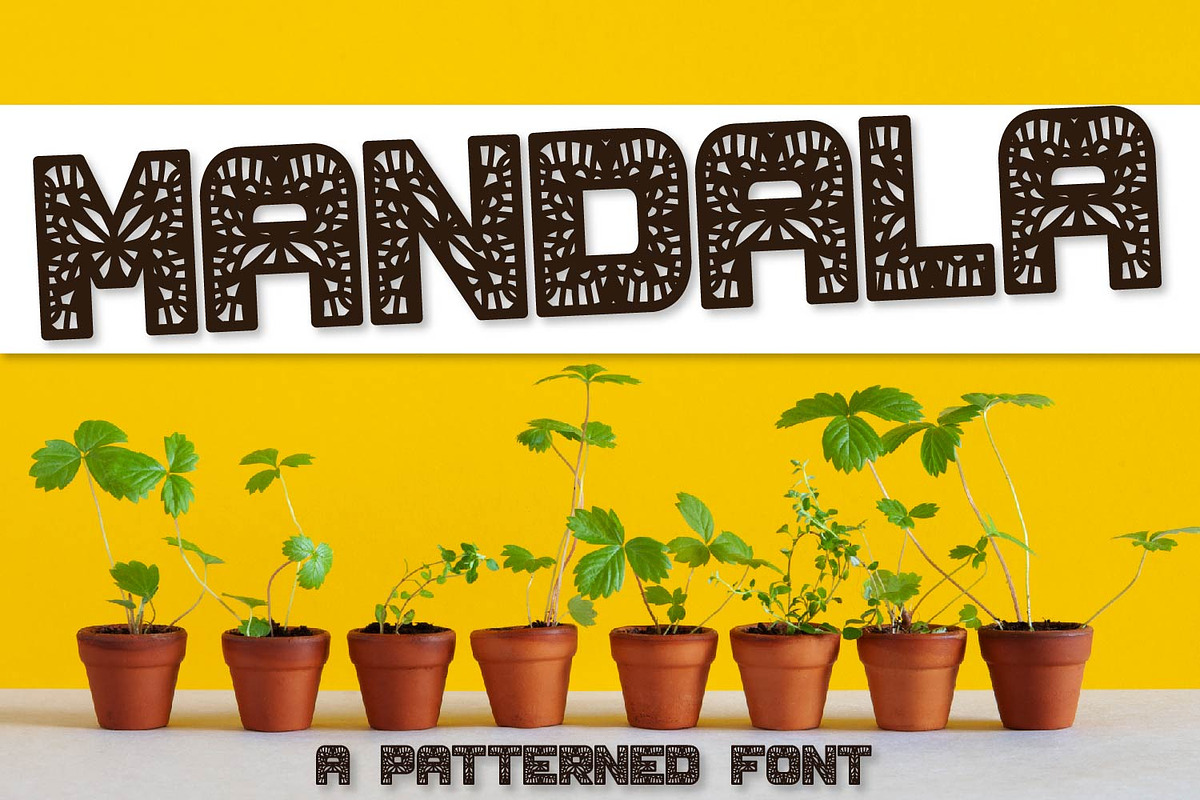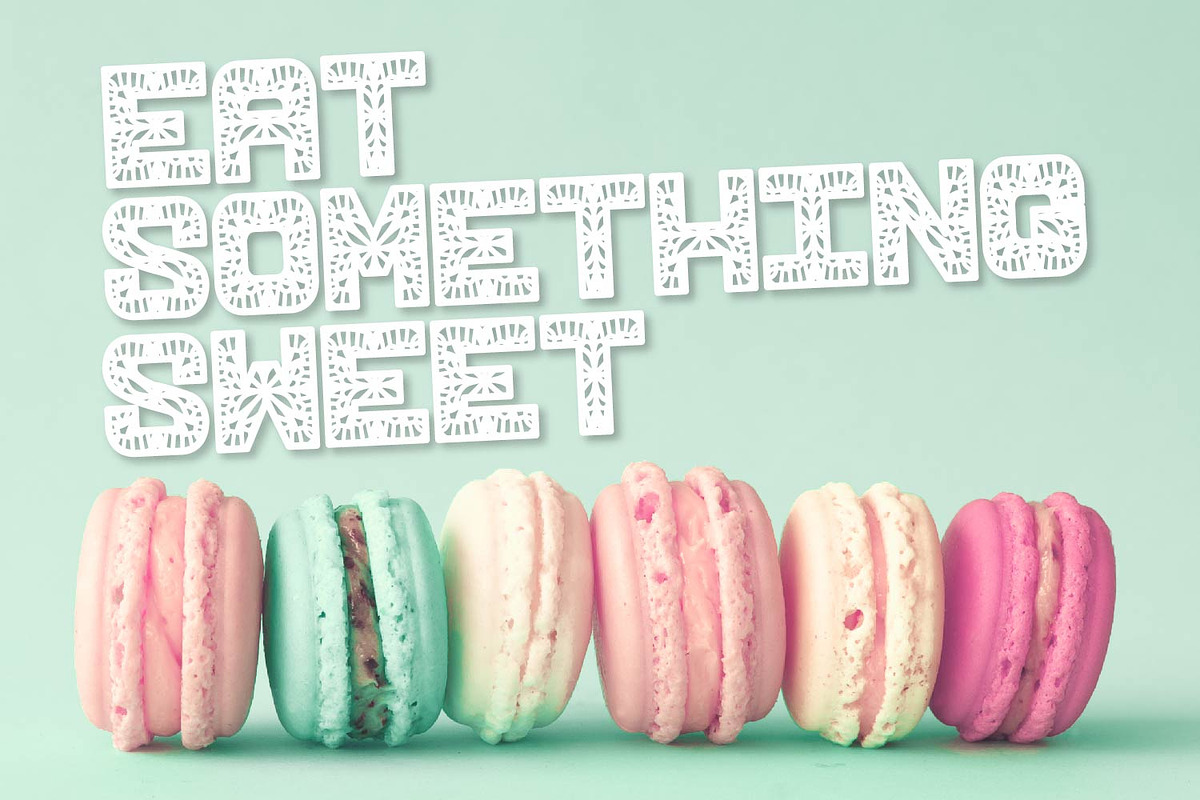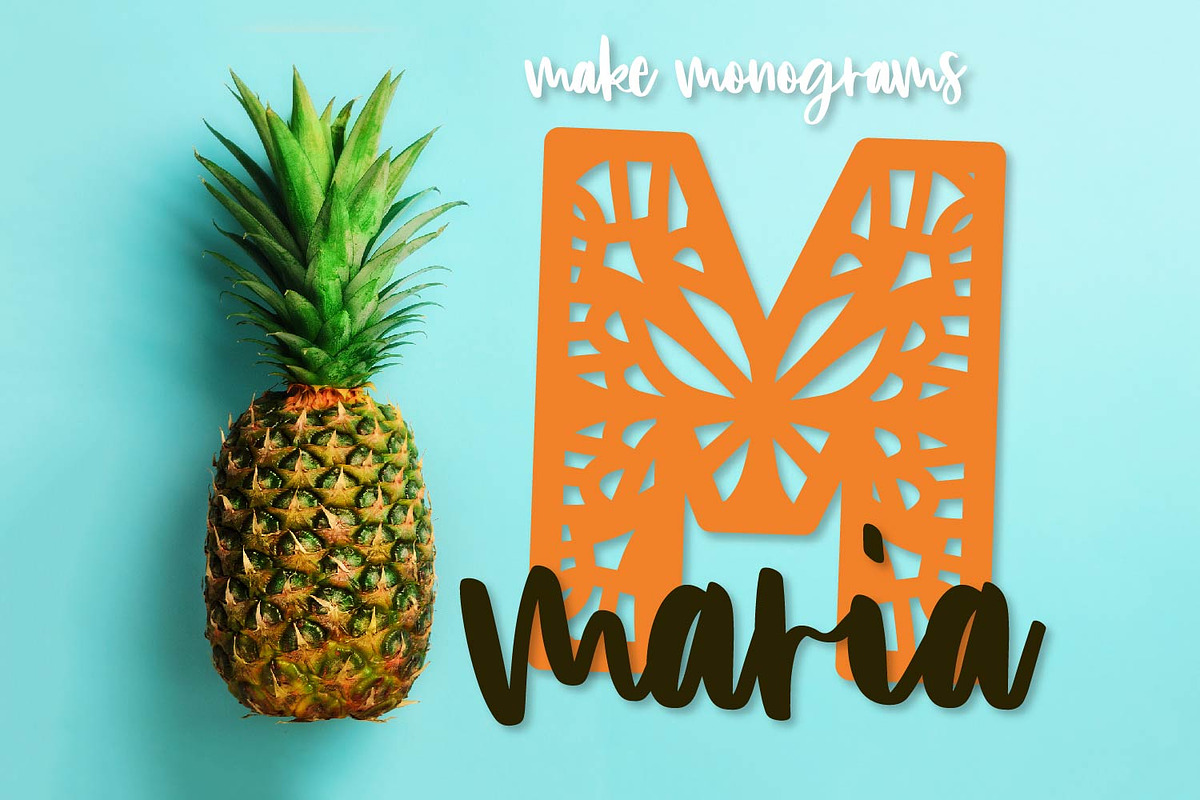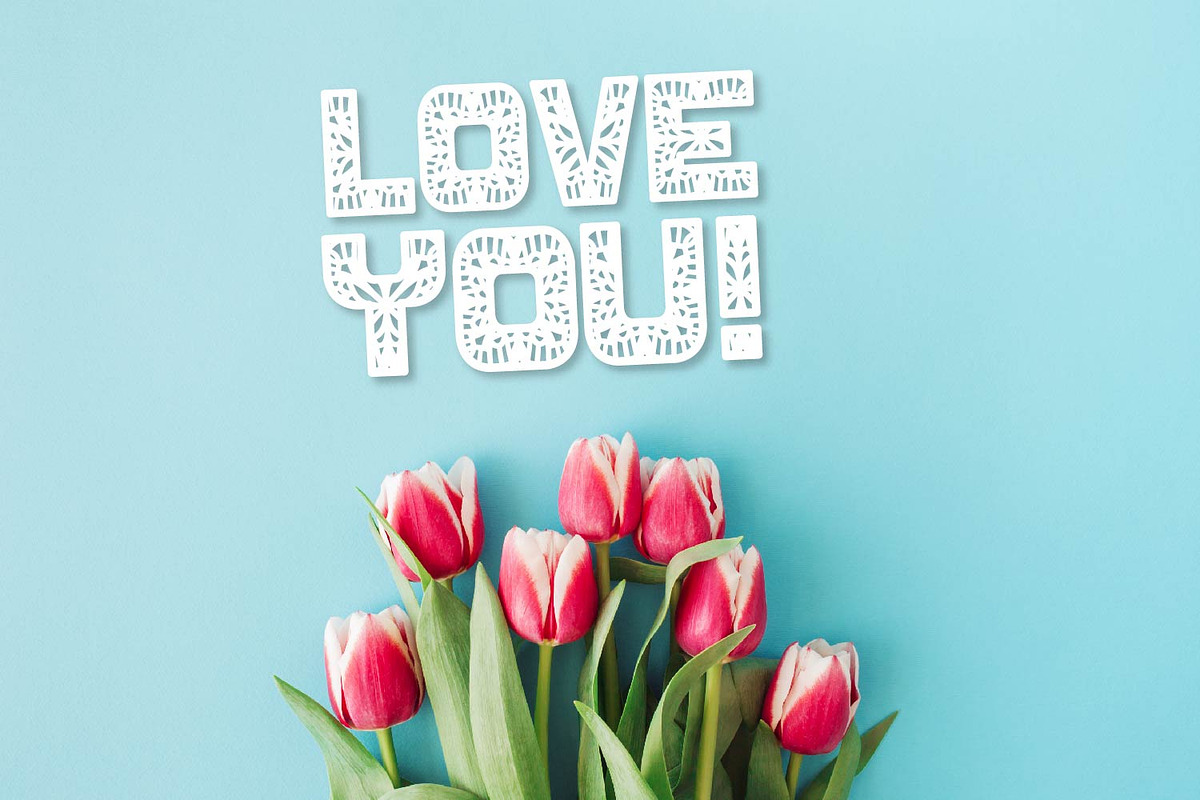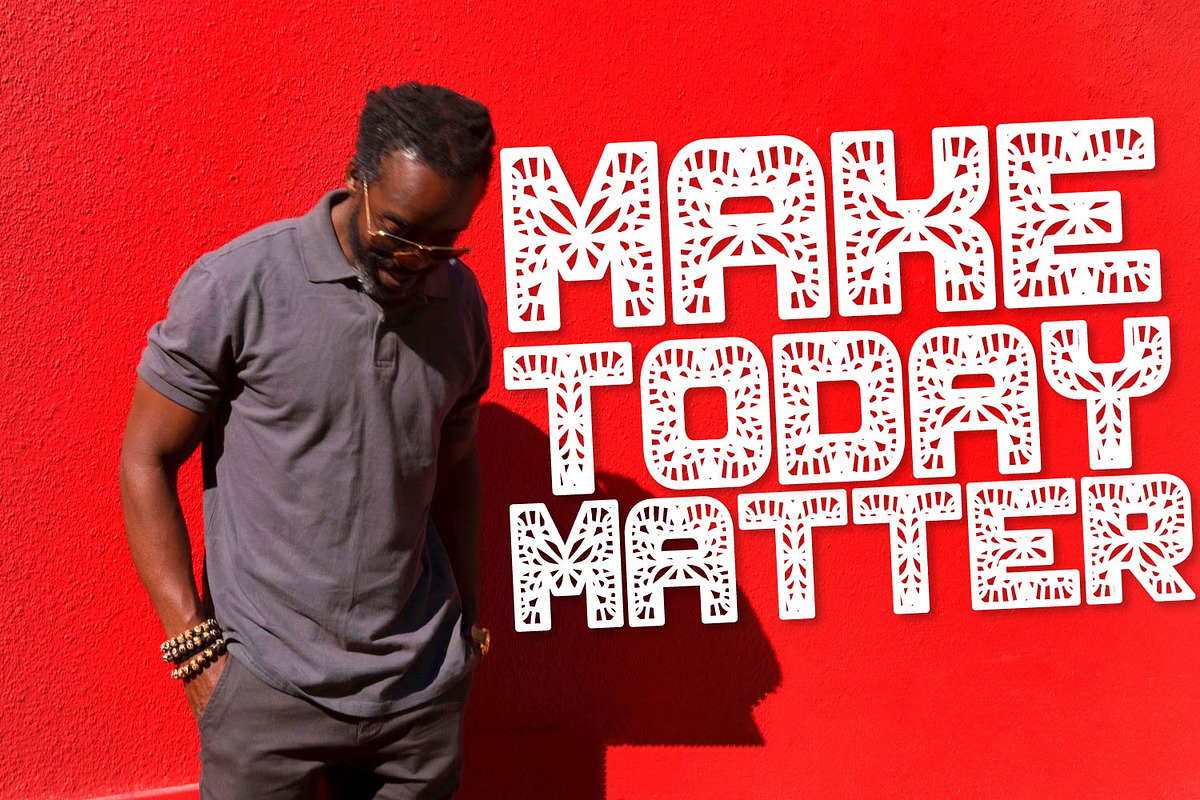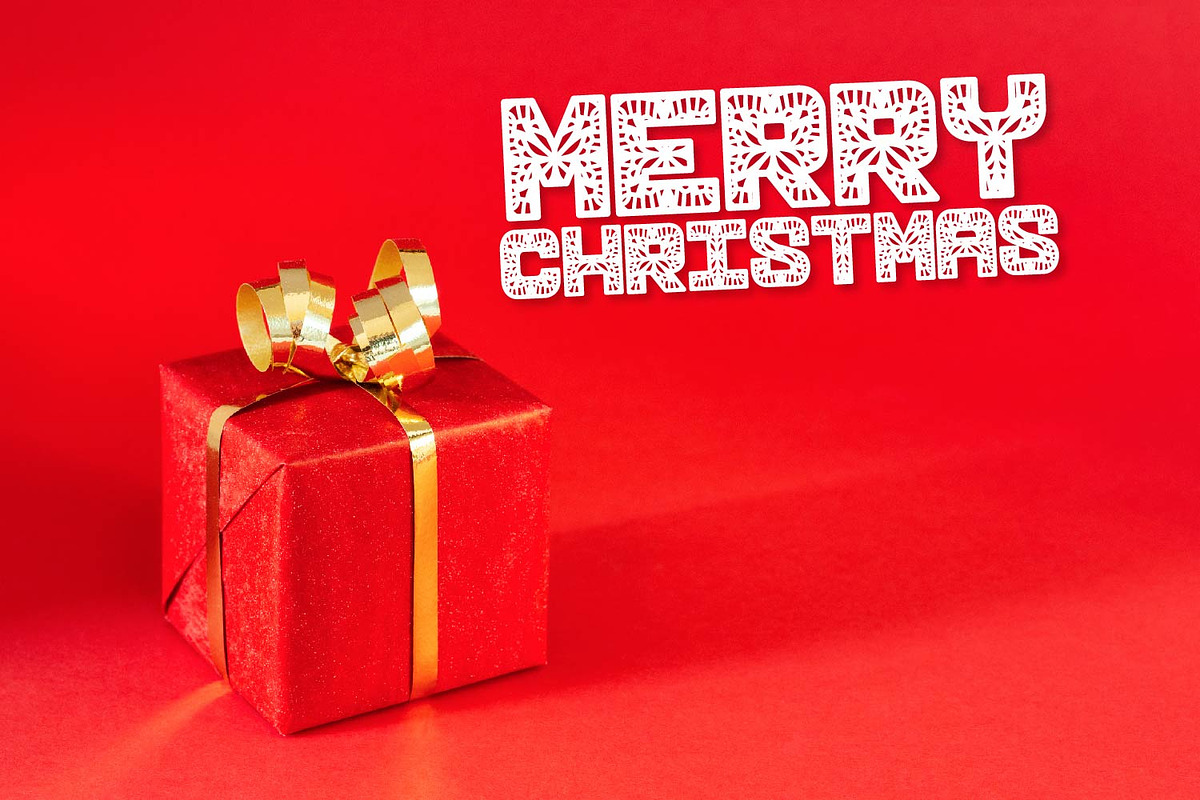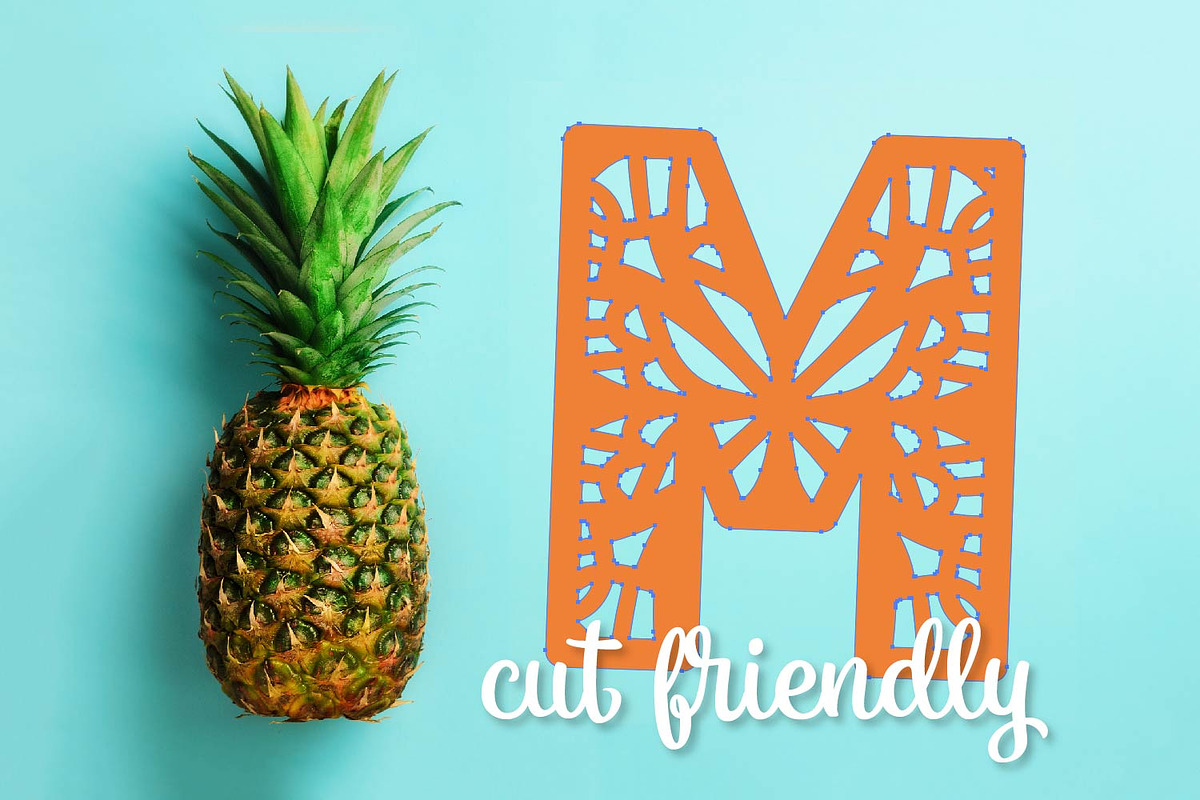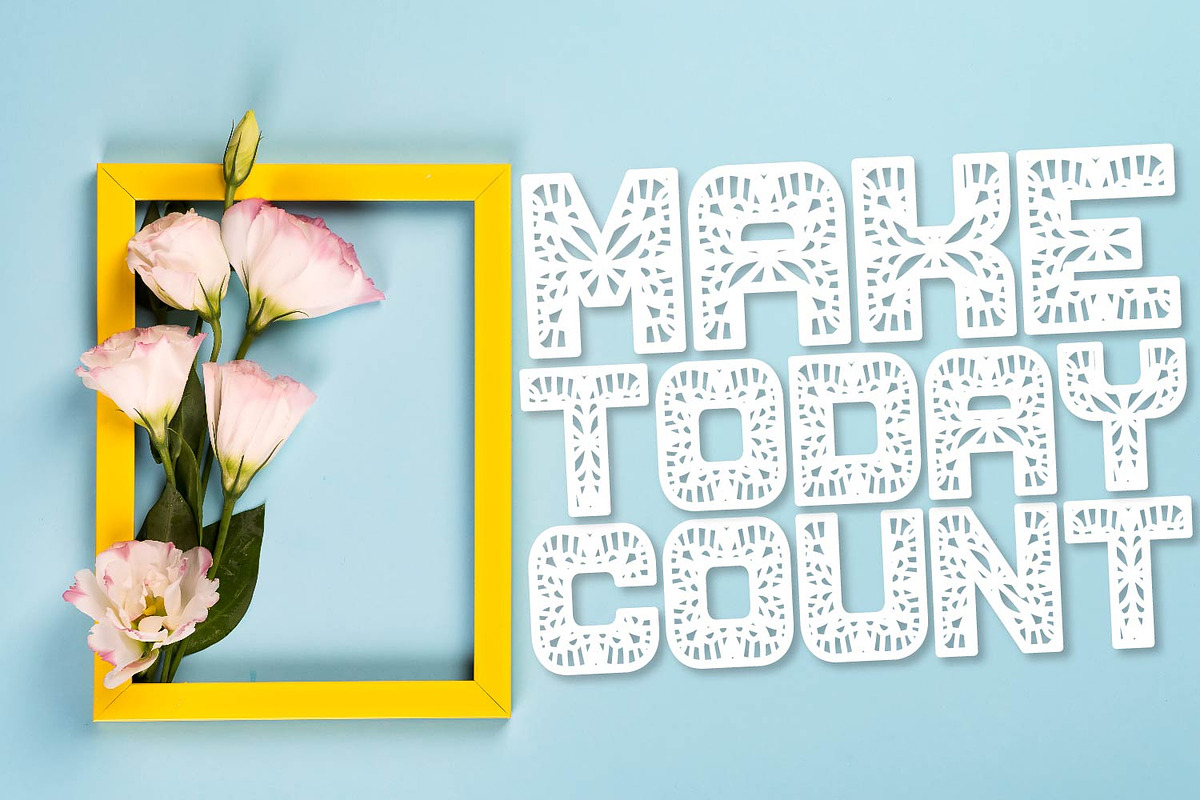
Mandala Font - Patterned
Mandala Font Patterned by CraftyLittleNodes is a font selected for branding, posters, packaging, typography.
Why Mandala Font - Patterned is worth a look
Mandala Font - Patterned by CraftyLittleNodes fits naturally into Branding, posters, packaging, typography.